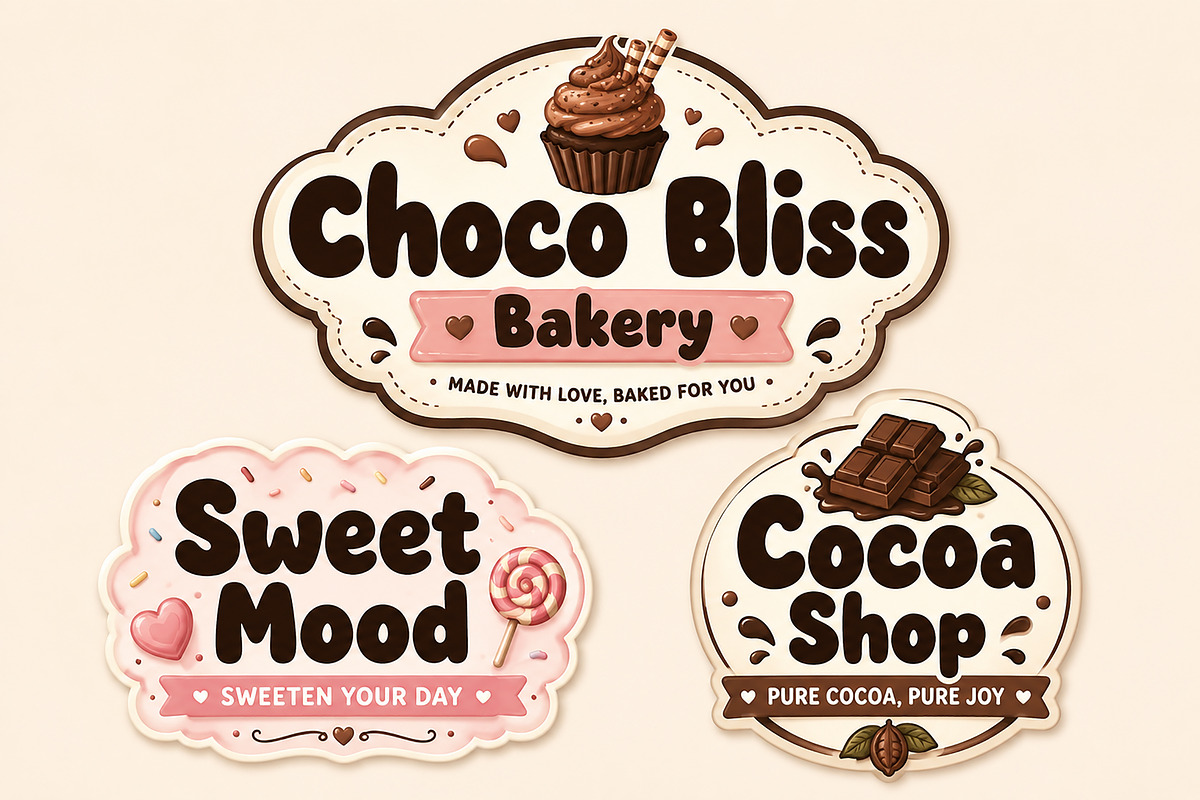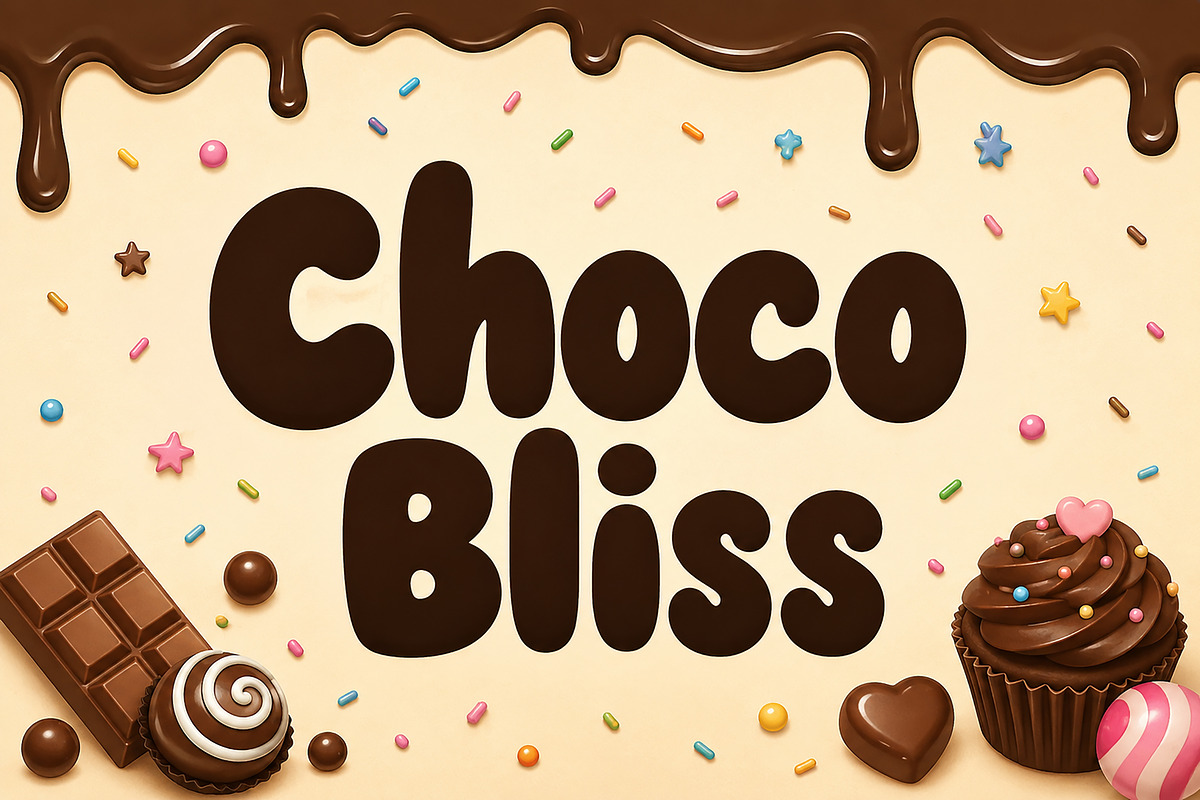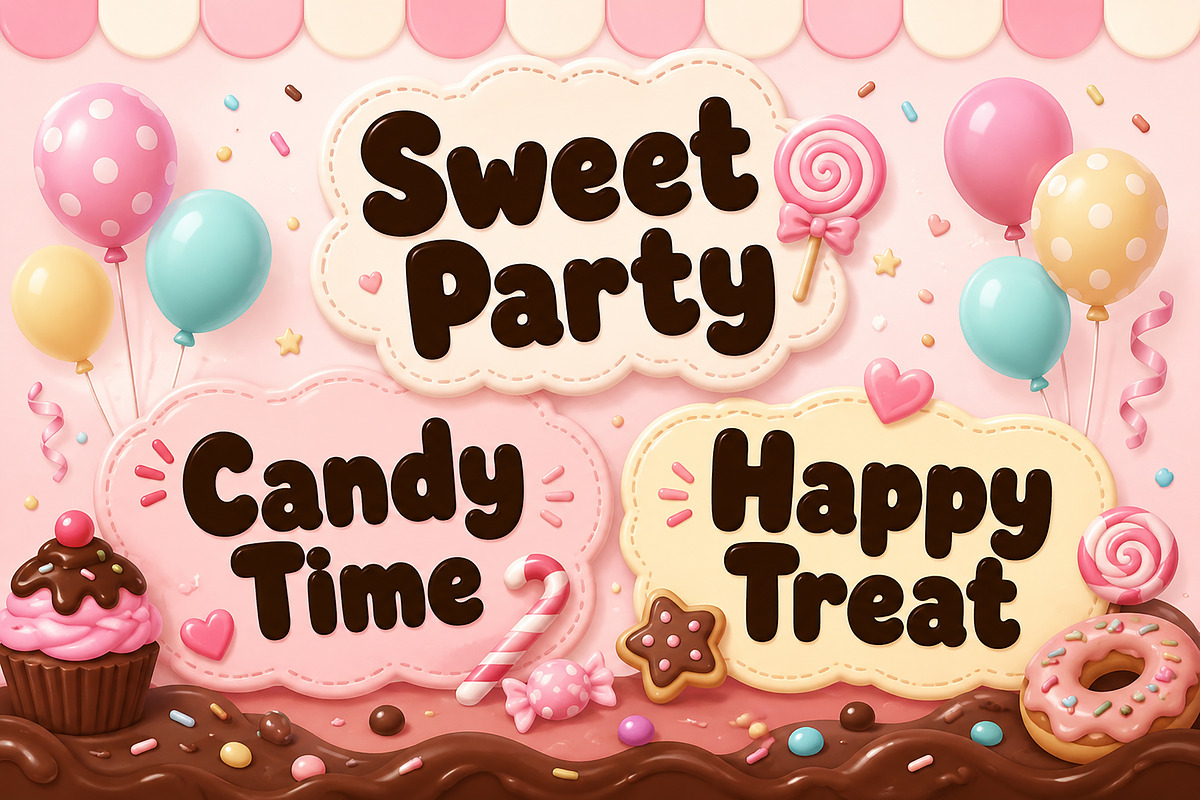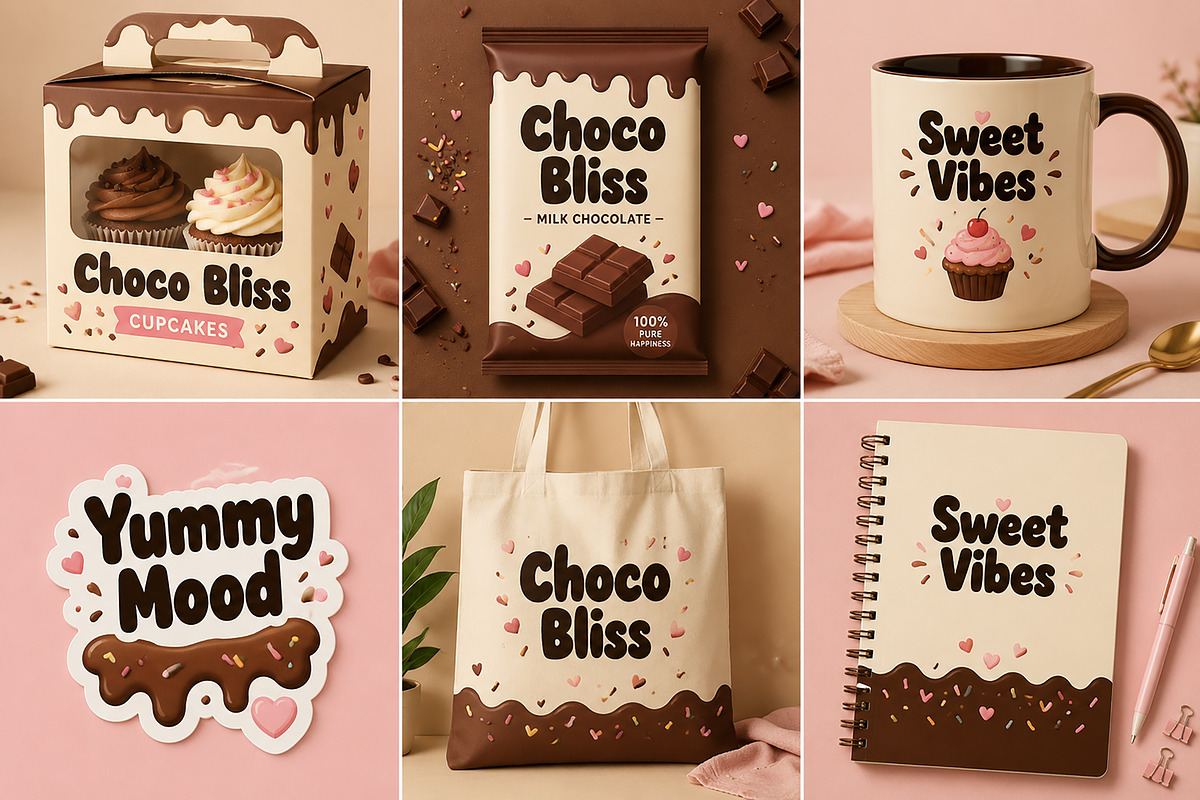
Choco Bliss
Choco Bliss – Playful Bubble Display Font
Introducing Choco Bliss, a fun and adorable bubble display font inspired by sweet treats, chocolate candies, playful packaging, and cheerful kids' designs. With its chunky rounded shapes, soft curves, and bold personality, Choco Bliss brings a joyful and friendly feel to any creative project.
Perfect for branding, product packaging, party invitations, children's books, stickers, Cricut crafts, social media graphics, posters, and merchandise. Whether you're designing for a candy shop, bakery, dessert brand, or creating cute digital products, Choco Bliss adds instant sweetness and charm.
Its bold and easy-to-read letterforms make it ideal for eye-catching headlines, logos, and playful typography projects.
Candy & Chocolate Packaging
Bakery Branding
Kids' Products
Birthday Invitations
Party Decorations
Stickers & Labels
T-Shirt Designs
Cricut & Silhouette Projects
Posters & Advertisements
Book Covers & Children's Books
Bring sweetness, fun, and happiness to your next design project with Choco Bliss!